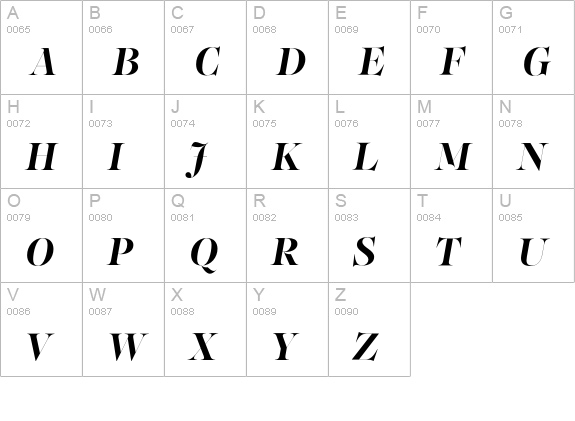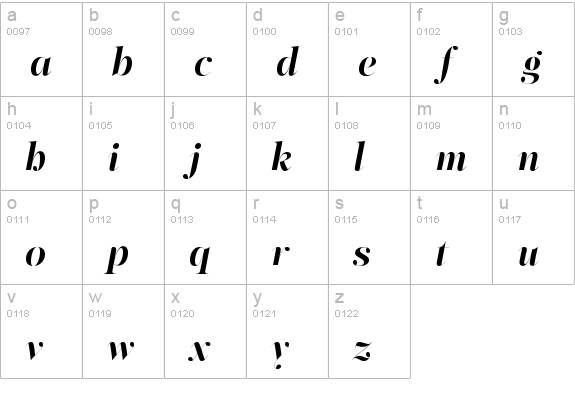
PFRegalFinessePro-BoldItalic is a stunning and elegant typeface that exudes sophistication and finesse. Its bold and italic design adds a touch of drama and flair to any project, making it perfect for headlines, branding, and luxury designs. The combination of sharp angles and smooth curves creates a harmonious balance that captures attention and leaves a lasting impression. And the best part? PFRegalFinessePro-BoldItalic is available for free download at FontsMarket.com. This means you can elevate your design projects with this exquisite font without breaking the bank. Don't miss out on the opportunity to add a touch of regal finesse to your creations with this beautiful typeface. Download it today and let your creativity soar!